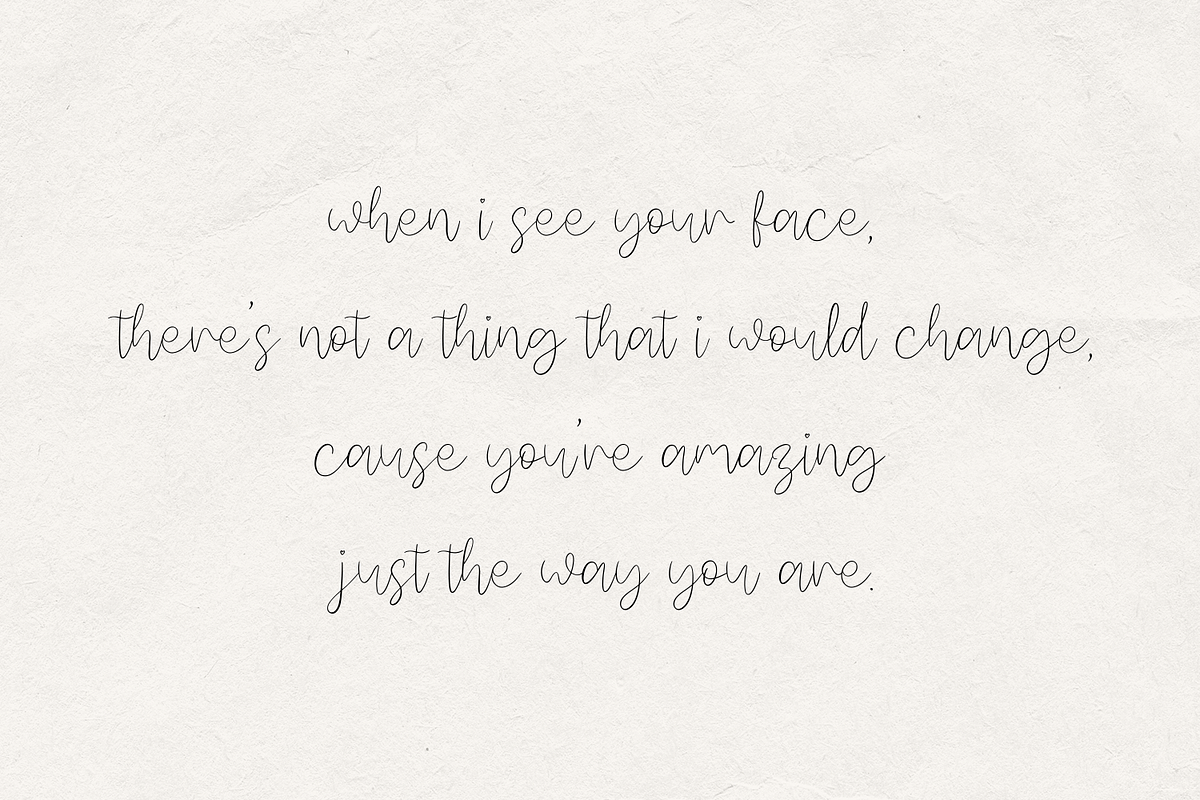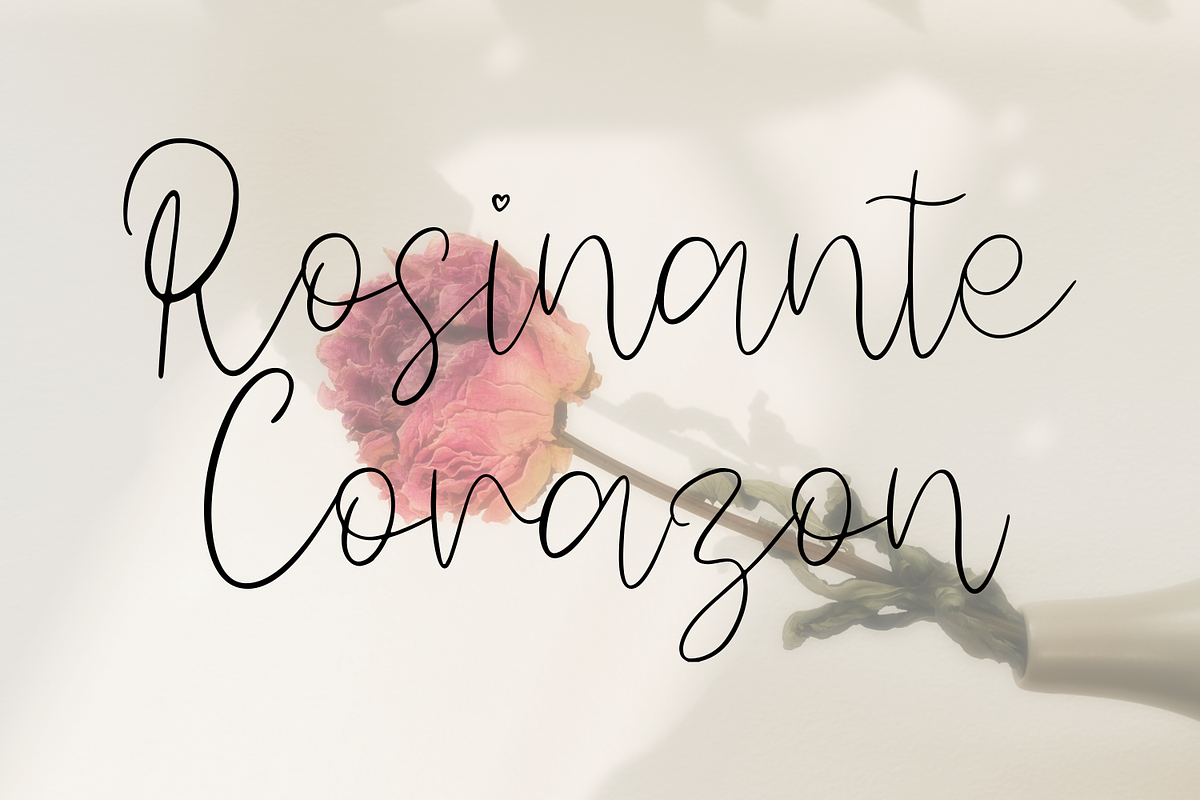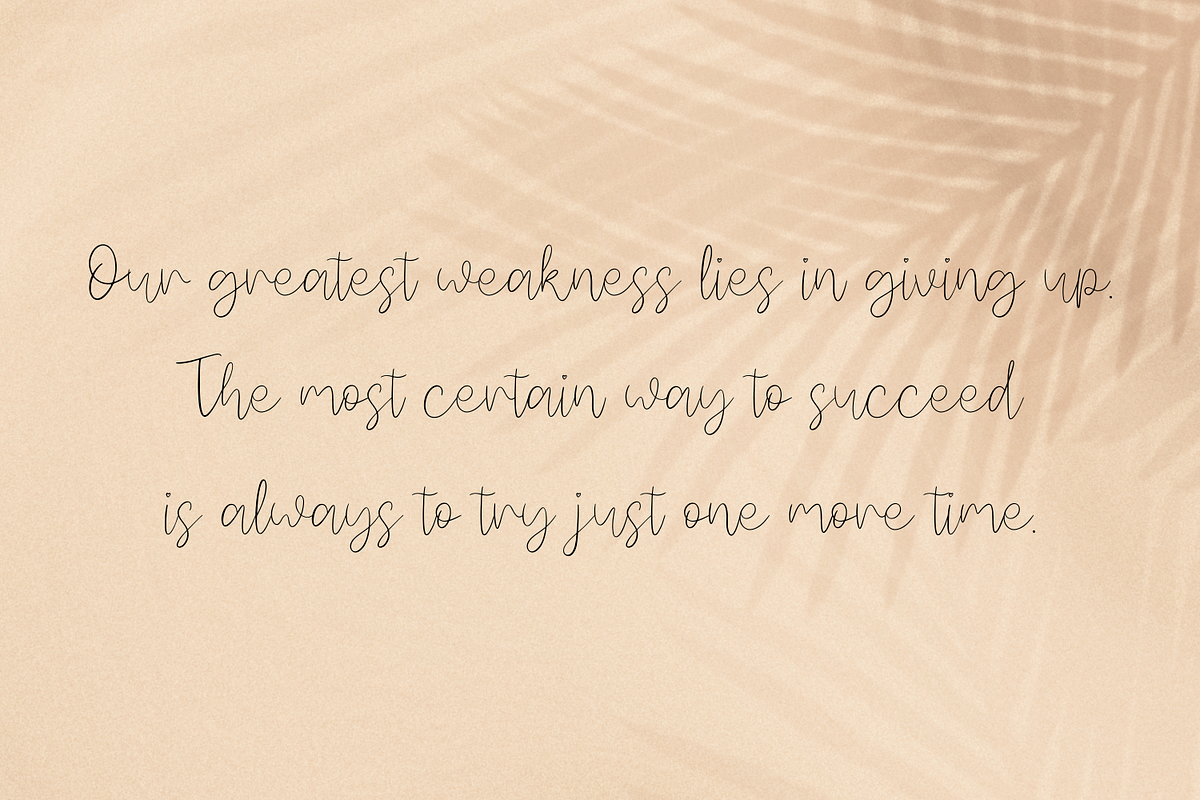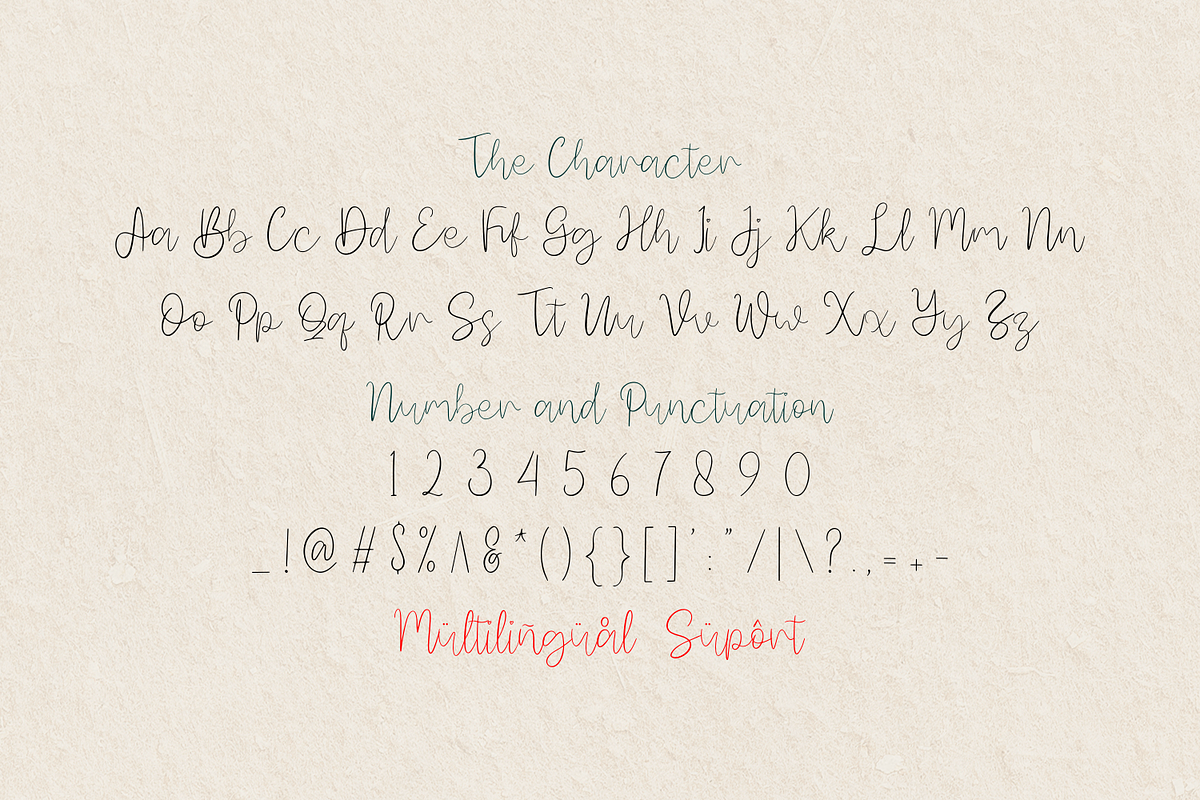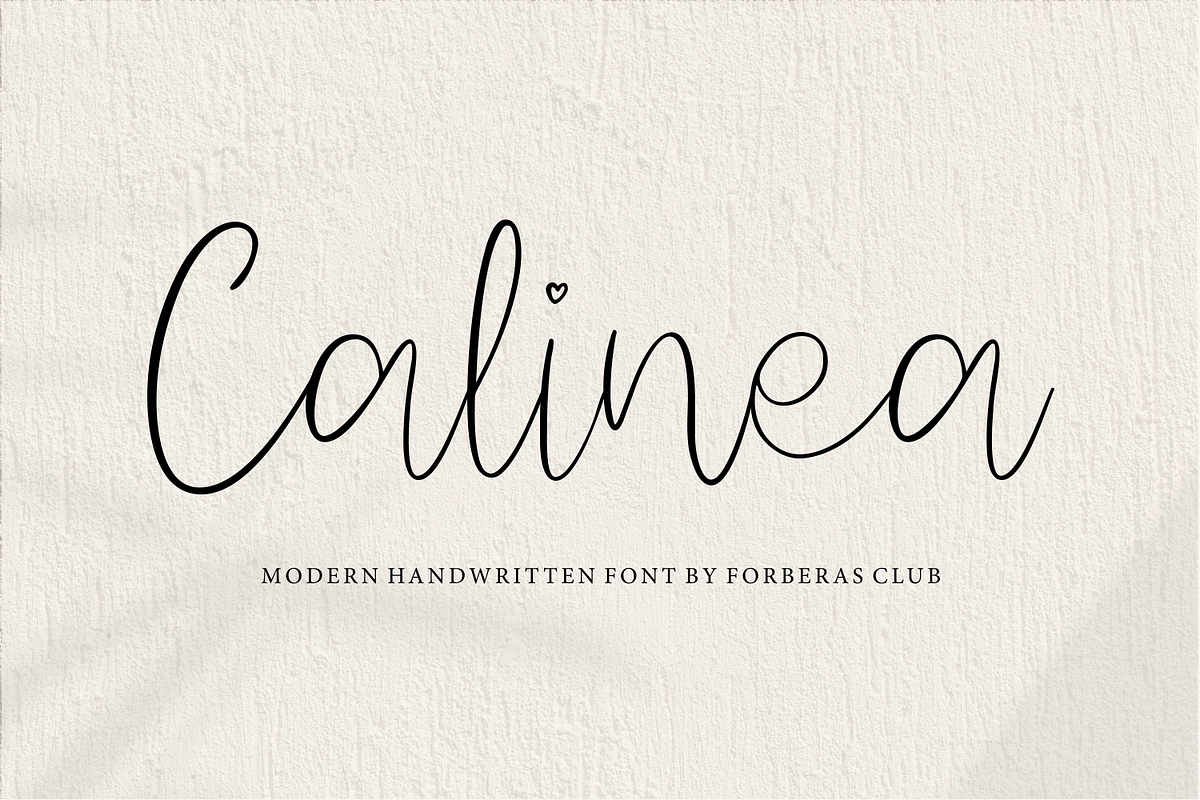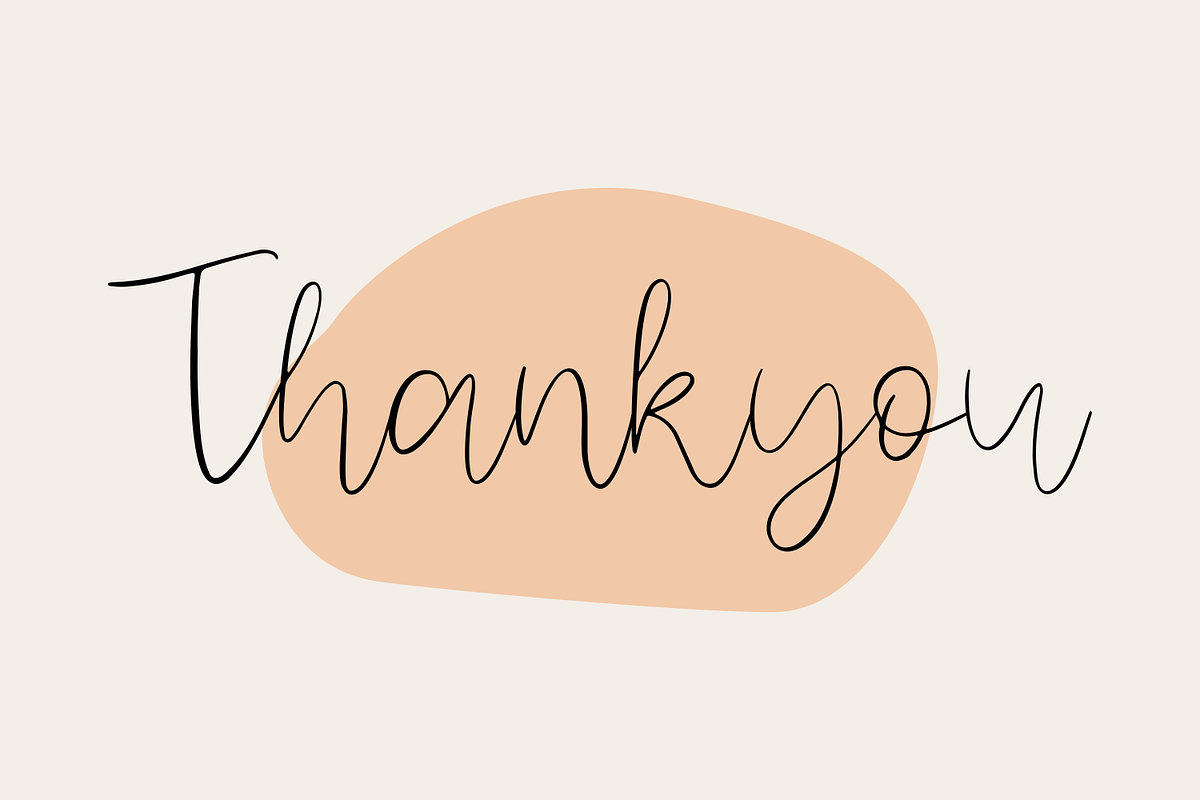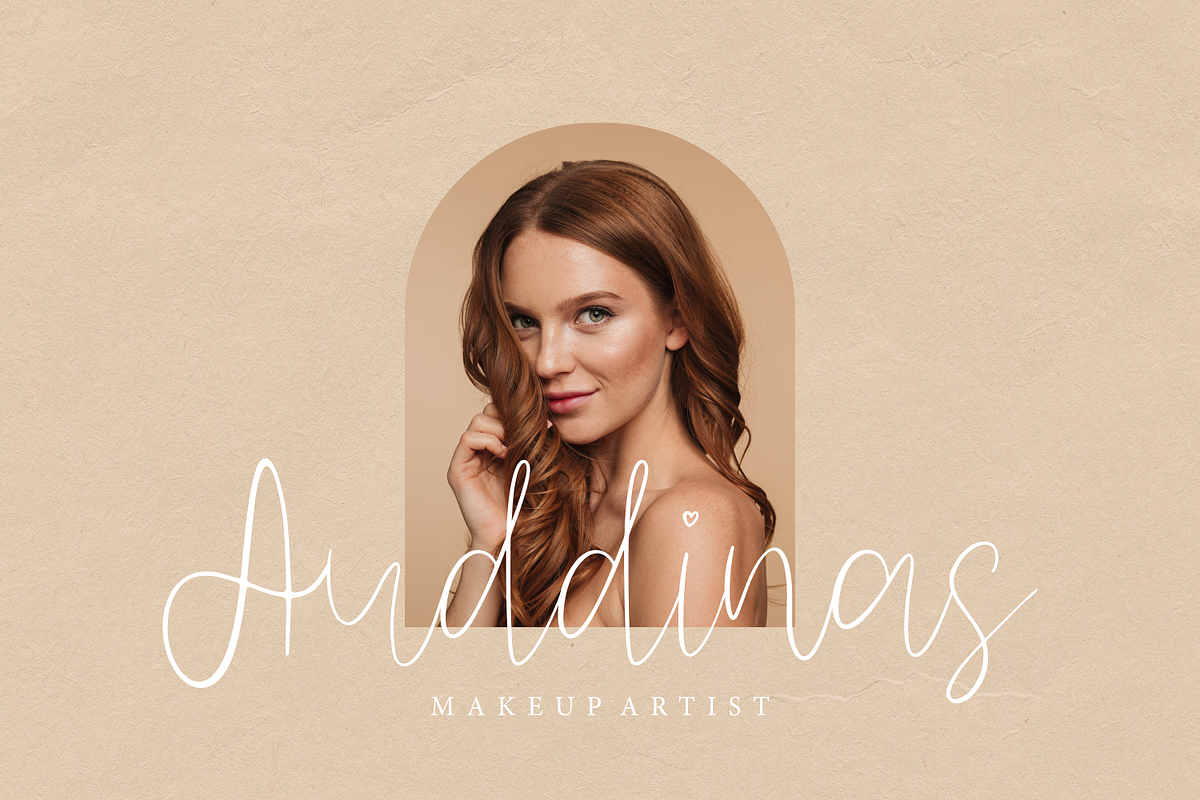
Calinea
Introducing Calinea by Forberas
Modern and beautiful handwritten script font! Great for wedding greeting cards, logos, branding materials, Invitation, business cards, quotes, posters, Cricut artwork and more!